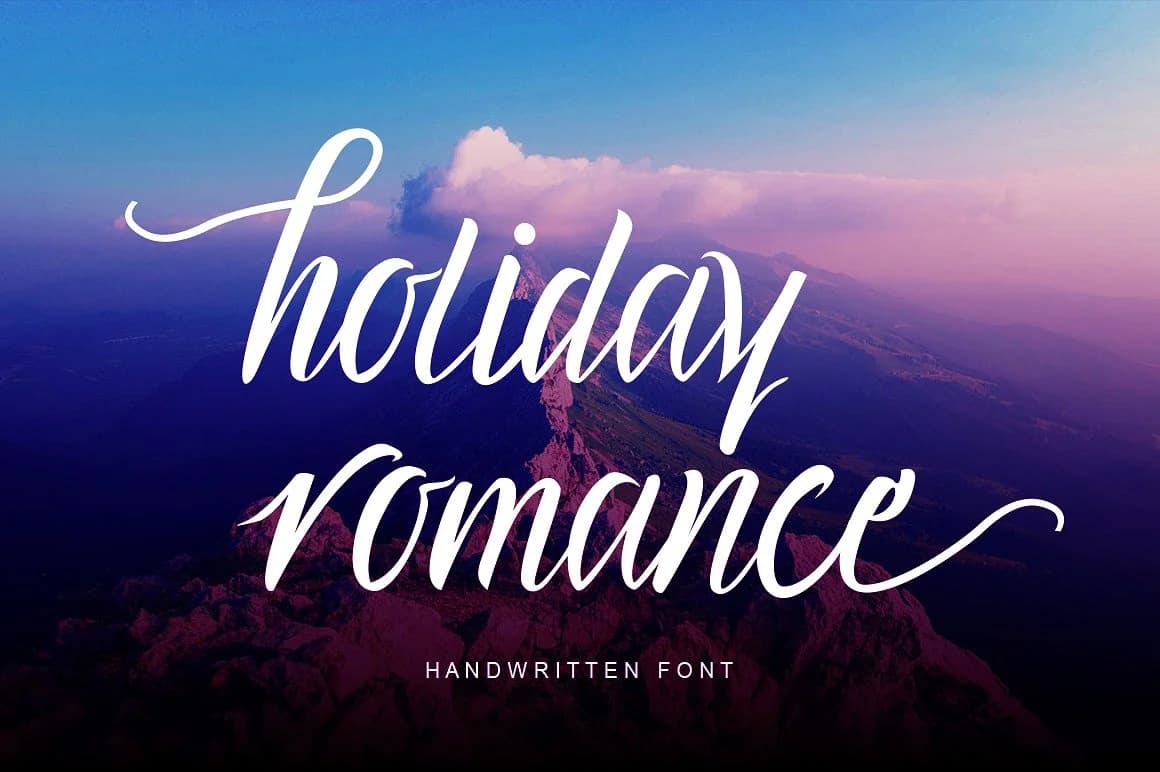
Holiday Romance by Mindtype Co. is a handwritten script font designed to infuse warmth and genuine personality into seasonal creative projects. The typeface features an extensive collection of alternates that empower designers to create authentic hand-lettered variations, allowing each word to feel distinct and uniquely customized rather than mechanically repeated throughout your design work. This elegant script typeface excels for wedding invitation suites with festive styling, holiday greeting card designs, romantic event announcement lettering, and artisanal gift tag creation. Whether you're building cohesive brand identities for boutique seasonal businesses, developing special occasion stationery packages, or creating holiday marketing materials, the flowing script style consistently delivers visual sophistication and authentic charm. The abundance of alternates makes this typeface particularly valuable for designers seeking meaningful variation, you can strategically mix and match individual letterforms throughout a single project, creating layered, organic-looking compositions that feel genuinely hand-crafted rather than mechanically digital. This flexibility ensures your festive designs stand out in crowded seasonal design categories. The handwritten quality works equally well for personal projects and professional branding applications. Bring your holiday designs to life with handwritten character by getting this script font on Creative Fabrica.
- Elegant, Flowing, Holiday Romance
Holiday Romance Font is a script font that shines as a display or heading face. Pair it with a clean sans-serif or serif font for body text β the contrast creates a clear hierarchy while the two styles stay balanced and easy to read.
Holiday Romance Font